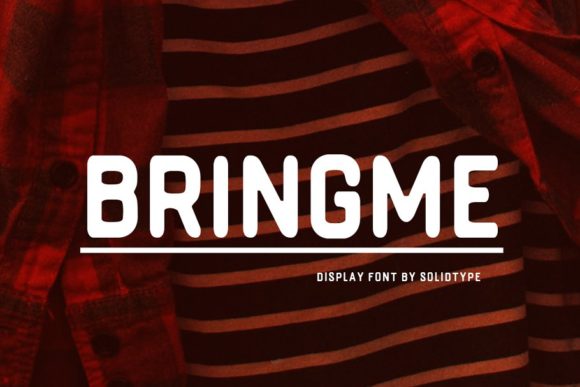
Prepare to be captivated by Bringme Font, a stunning display font that exudes elegance and visual prowess, meticulously crafted by Solidtype. Bringme's sharp and refined strokes command attention, effortlessly elevating your designs with a touch of sophistication.
Unleash your creativity with Bringme's versatile nature, seamlessly adapting to a myriad of projects. Whether you're crafting logos that demand impact, headlines that scream for attention, or posters that ignite imaginations, Bringme effortlessly rises to the occasion. Its clean lines and striking presence ensure your message cuts through the noise, leaving an indelible mark on your audience.
Immerse yourself in Bringme's incredibly eligible style, where each character dances with grace and precision. Its impeccable legibility ensures your words are not just seen, but savored. Experience the joy of crafting designs that effortlessly communicate, leaving no room for misinterpretation.
With Bringme as your creative companion, you'll discover a world of design possibilities. Its inherent strength and clean aesthetic lend themselves to a vast spectrum of applications. Unleash your inner artist and let Bringme elevate your designs to new heights of brilliance.